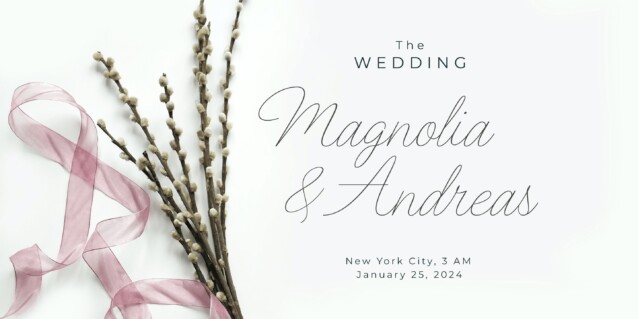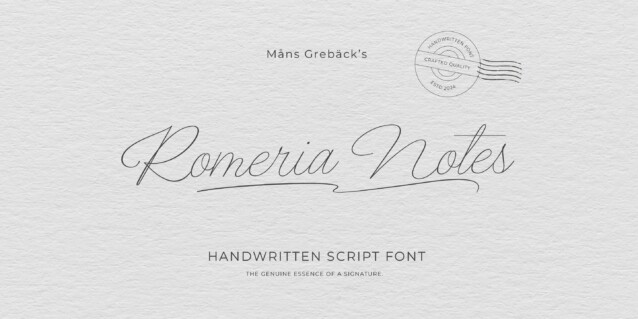
Romeria Notes Font
Romeria Notes Font is a Modern Calligraphy Handwritten Font crafted & designed by Mans Greback. This natural script font, with its fluid and seamless strokes, seems as if it’s been directly lifted from a personal notebook. Each character is crafted to mirror the effortless elegance found in an artist’s autograph, making it a perfect choice for projects that require a touch of personalization. The cute and charming style of Romeria Notes brings a delightful and engaging feel to the text, while maintaining a beautiful and coherent appearance. The font exudes an organic flow, reminiscent of writing done in a state of inspiration and spontaneity. The font is built with advanced OpenType functionality and has a guaranteed top-notch quality, containing stylistic and contextual alternates, ligatures, and more features; all to give you full control and customizability. It has extensive lingual support, covering all Latin-based languages, from Northern Europe to South Africa, from America to South-East Asia. It contains all characters and symbols you’ll ever need, including all punctuation and numbers.